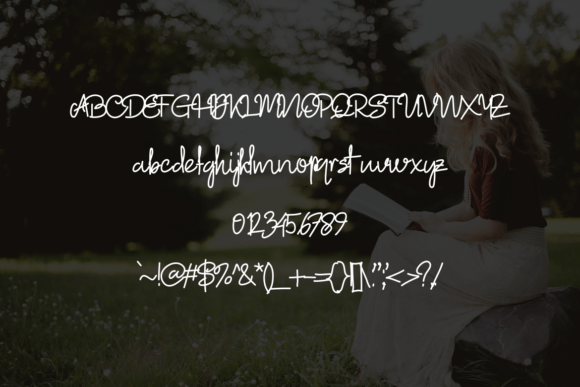
Introduction to Qalesya Font
Have you ever stared at a blank canvas, your mind racing with ideas, but your hands hesitant to pick up the pen? That’s exactly how I felt the last time I started a new creative project. But then, I stumbled upon the perfect design resource – the Qalesya Font. Its fun and quirky handwritten style instantly sparked my imagination, and I knew I had to learn more about this high-quality font.
As a designer, I can attest that finding the right font can make all the difference in bringing your vision to life. And Qalesya Font is one of those rare gems that stands out from the crowd. With its fresh and contemporary feel, it’s perfect for any design project, from digital to print. Plus, its transparent background makes it easy to customize and integrate into your design.
Key Features of Qalesya Font
- High-quality design resource with a unique, creative aesthetic suitable for various projects.
- Features a high-resolution design, suitable for print and digital applications at 300 DPI or higher.
- Unique characteristics include a modern, minimalist style with clean lines and elegant typography.
- Perfect for designers looking for a high-quality, free design resource to enhance their creative projects.
Honest Review: Qalesya Font
As a designer, I’m always on the lookout for high-quality design resources that can elevate my creative projects. The Qalesya Font is one such resource that caught my attention. Here’s my honest review.
- Unique and elegant design: The Qalesya Font has a distinctive, hand-drawn feel that makes it perfect for creative projects that require a touch of sophistication.
- High-quality glyphs: The font includes a wide range of glyphs, including punctuation marks and numbers, making it a great choice for designers who want to ensure their text is consistently formatted.
- Transparent background: This is a huge plus for designers who need to create graphics with a transparent background – it makes it easy to work with the font without worrying about background distractions.
While the Qalesya Font is a great addition to any designer’s toolkit, there are a few limitations to consider:
- Only a few styles: The font comes in a limited number of styles, which may not be suitable for projects that require a wide range of font weights and styles.
- No bold or italic versions: Some designers may find that the lack of bold or italic versions of the font limits its versatility.
Overall, the Qalesya Font is a great resource for designers who want to add a touch of elegance to their creative projects. While it may have some limitations, its unique design and high-quality glyphs make it a valuable addition to any design library.
The Qalesya Font is a high-quality design resource ideal for creative projects that require a unique and eye-catching aesthetic. This versatile font is available for free download and features a transparent background, making it easy to integrate into various design elements.
Tips for Getting the Most Out of Qalesya Font
To get the most out of the Qalesya Font, use it in combination with other design elements, such as shapes and icons, to create a visually appealing design. Experiment with different font sizes and styles to add depth and interest to your design.
The Qalesya Font is ideal for use in creative projects such as:
Business cards and brochures
Website headers and footers
Social media graphics and ads
Presentations and reports